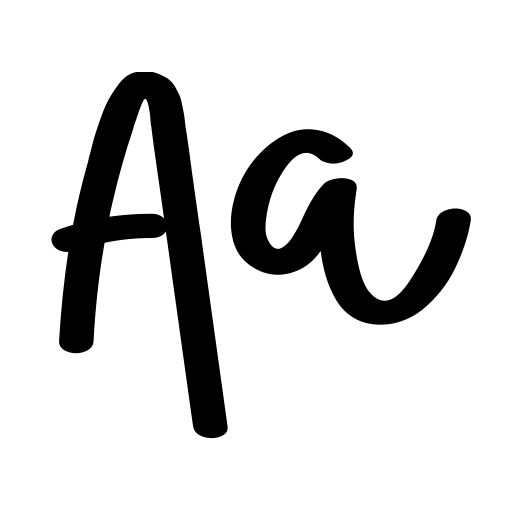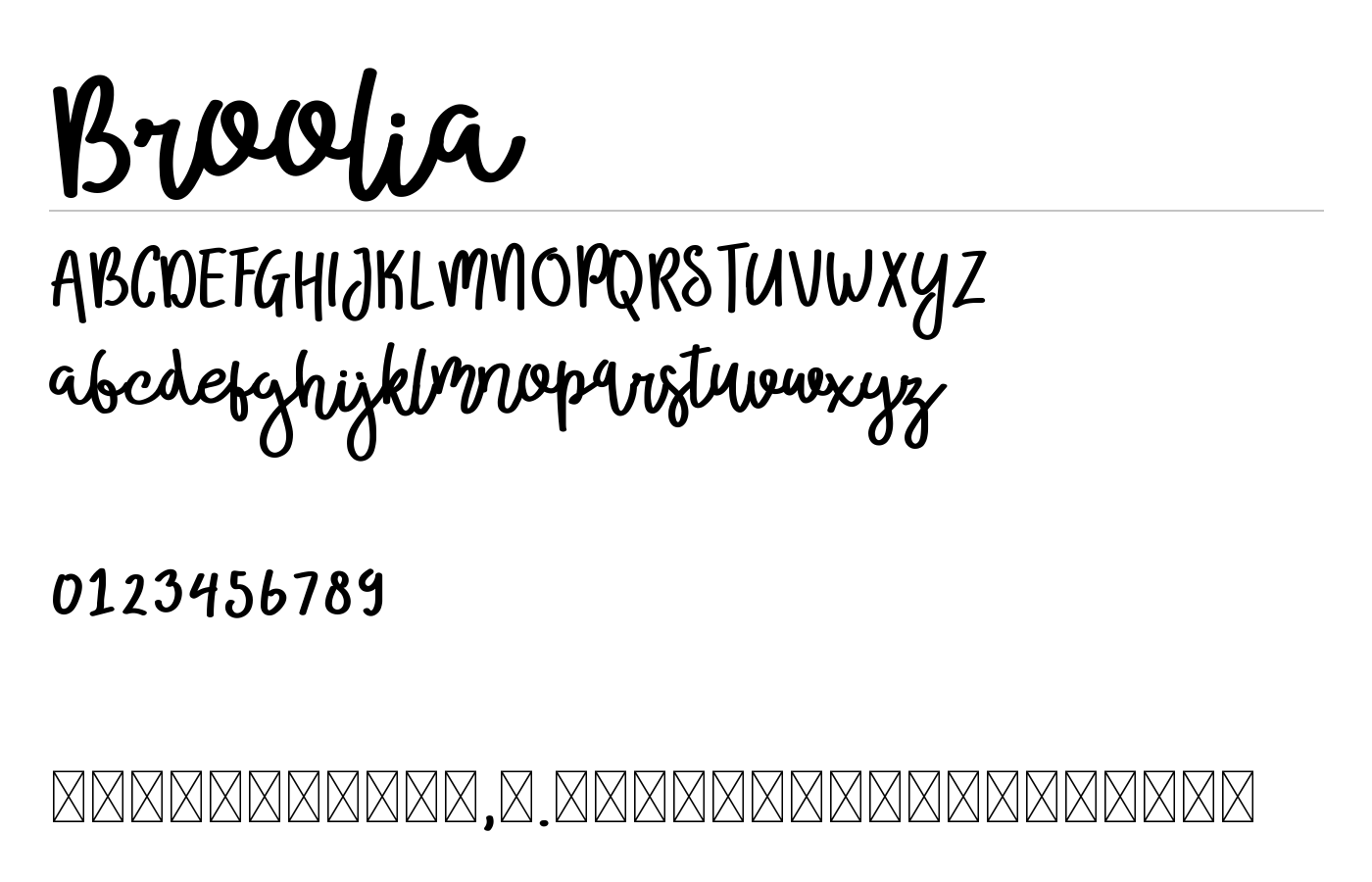
Broolia is a charming handwritten script font with a lively, playful feel created by its smooth, rounded strokes and distinctive casual letterforms. Its moderate weight and upright posture make it perfect for friendly, approachable designs like invitations, branding, and social media, where a personal touch is desired. This font adds warmth and character, making it great for projects that aim to feel informal yet stylish.
Broolia Font
About Broolia Font